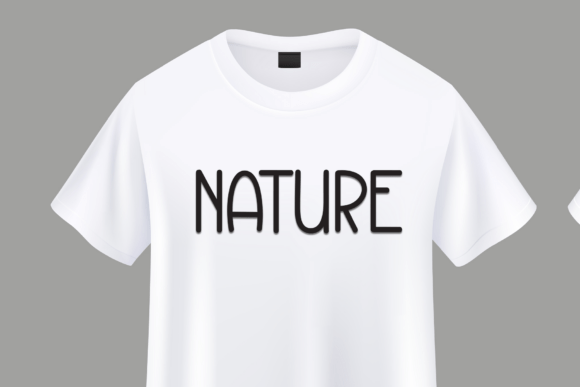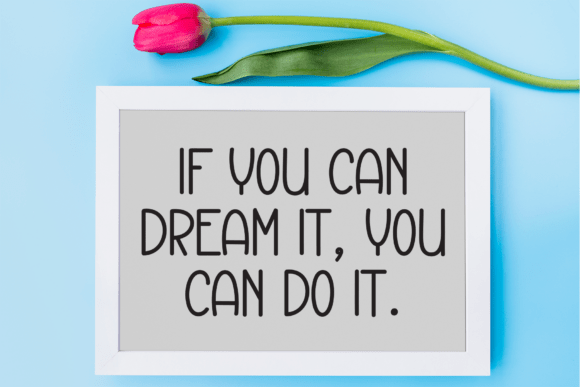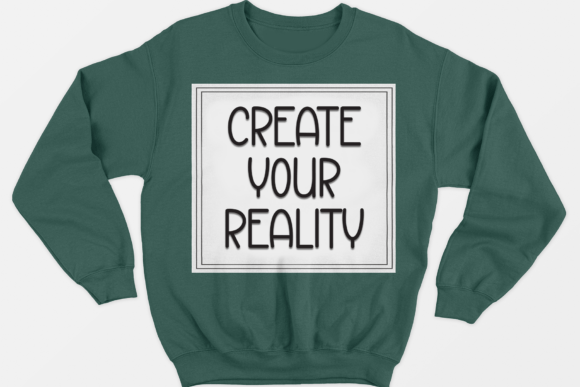
Introduction to Simple Alpabet Font
As a designer, you know the thrill of stumbling upon that perfect font to elevate your creative project. It’s the moment when all the pieces fall into place, and your design comes alive with personality and charm. For me, that moment came when I discovered the Simple Alpabet Font, a free download that’s been a game-changer in my design workflow.
With its clean lines, balanced letterforms, and subtle rounded edges, the Simple Alpabet Font is a design resource that’s hard to resist. Whether you’re working on a branding project, crafting a headline, or designing packaging, this font adds a warm and inviting touch that’s impossible to ignore. And with its high-quality structure and versatile style, it delivers clarity and charm in equal measure.
As a valuable addition to any designer’s toolkit, the Simple Alpabet Font offers a transparent background that makes it easy to layer and manipulate, perfect for digital content and creative projects of all kinds.
Key Features of Simple Alpabet Font
- High-quality design with a clean and simple aesthetic, making it perfect for creative projects.
- Designed to be highly legible, with clear and easy-to-read characters, ideal for body text and titles.
- Includes a wide range of characters, including uppercase and lowercase letters, numbers, and punctuation marks.
Honest Review: Simple Alpabet Font
I recently stumbled upon the Simple Alpabet Font, a design resource that caught my attention with its clean and minimalist aesthetic. I was excited to dive in and see if it lived up to its promise.
- The Simple Alpabet Font is extremely easy to use, with a clear and legible design that’s perfect for creative projects.
- The font’s versatility makes it suitable for a wide range of design projects, from print to digital.
- The font’s simplicity may not be ideal for more complex design projects that require a lot of personality.
- The font’s limited character set may not be suitable for projects that require a wide range of special characters.
Overall, I’m impressed with the Simple Alpabet Font. It’s a high-quality design resource that’s perfect for designers looking for a clean and minimalist font for their creative projects. While it may have some limitations, it’s an excellent choice for anyone looking for a simple and effective font solution.
Use the Simple Alpabet Font with a transparent background to create a clean and modern look. Experiment with different font sizes and colors to add visual interest to your design.
The Simple Alpabet Font is ideal for use in logos, headings, and titles. It is also great for creating high-quality designs for print and digital media.